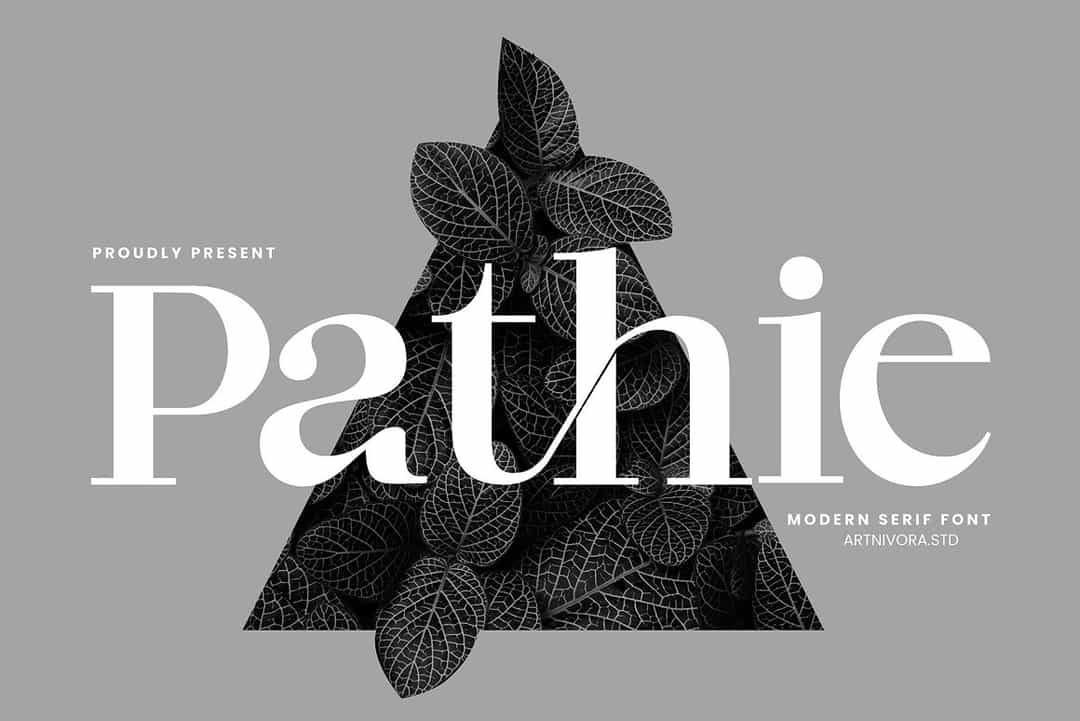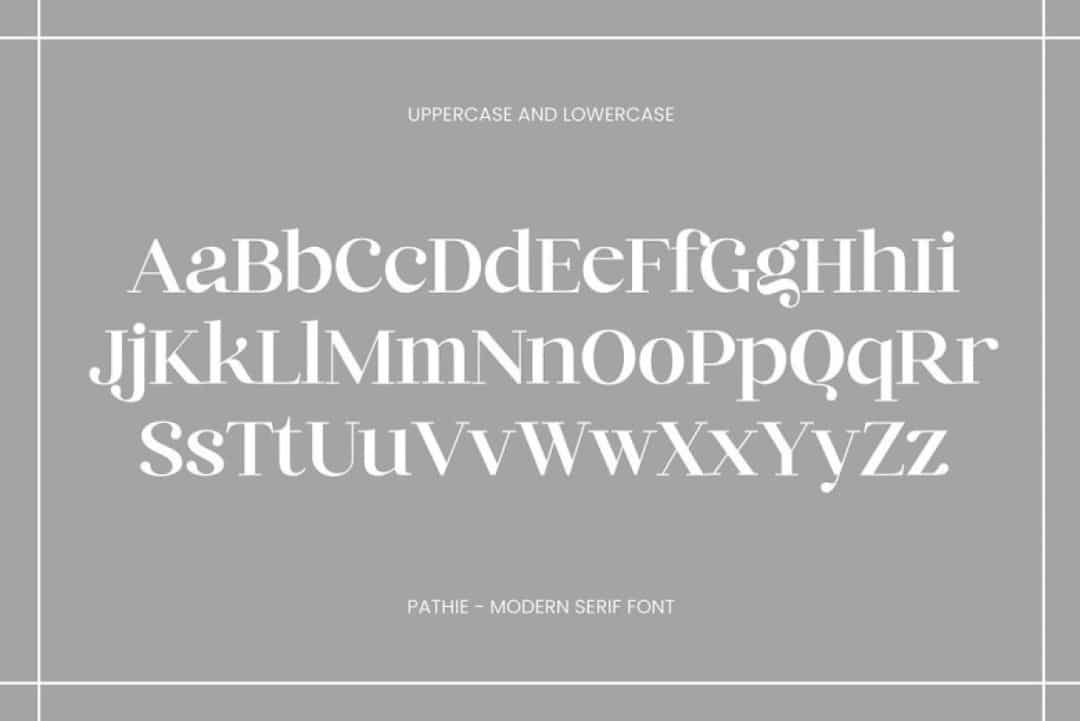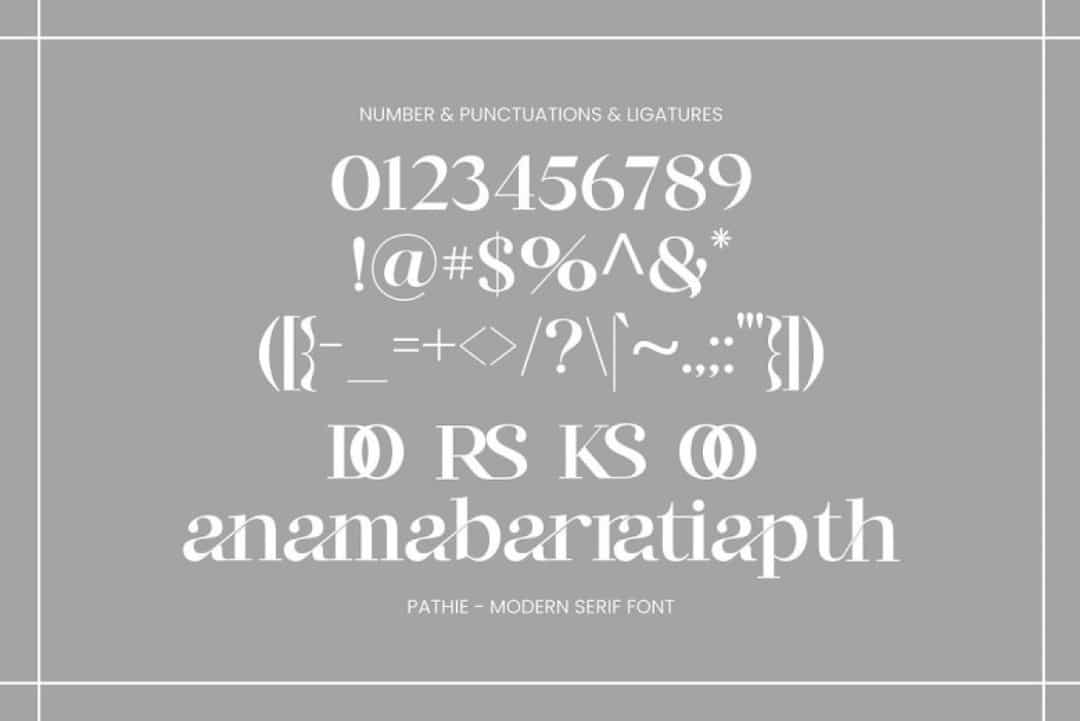
Pathie, an elegant serif font, adds modern elegance to your work. With its clean lines and modern design, Pathie adds a sleek yet elegant appearance to your documents. Pathie font is flexible and easily readable, offering your typography a stylish yet contemporary appearance. Take advantage of its elegance to elevate any project!